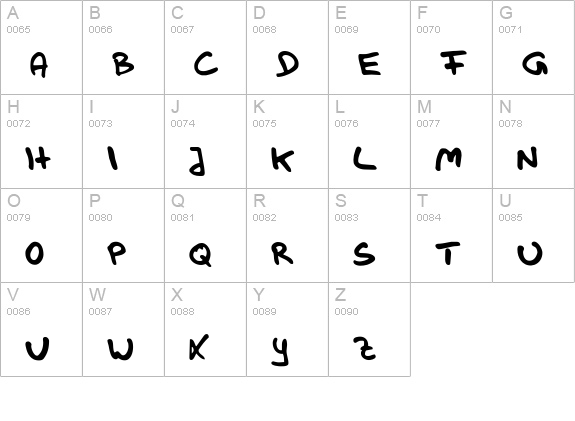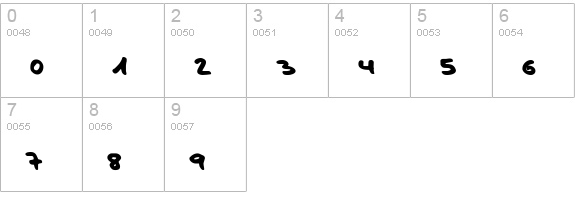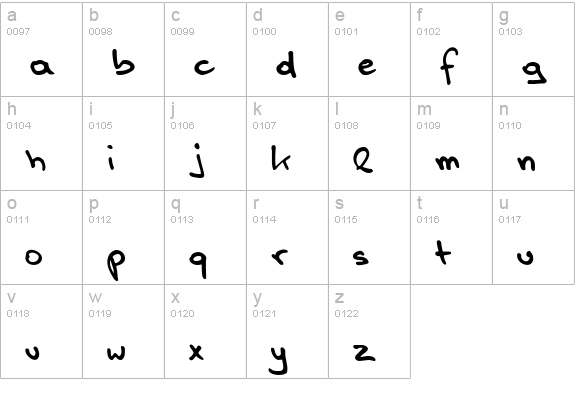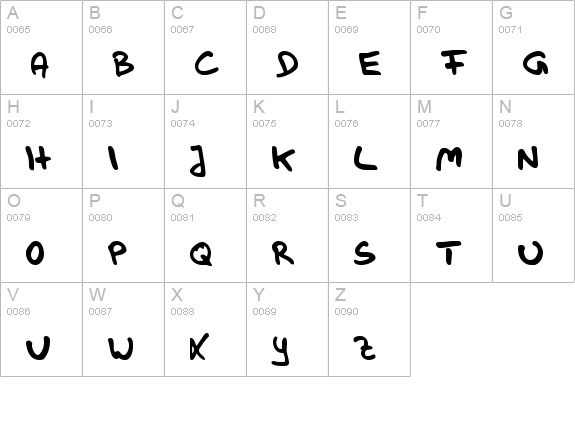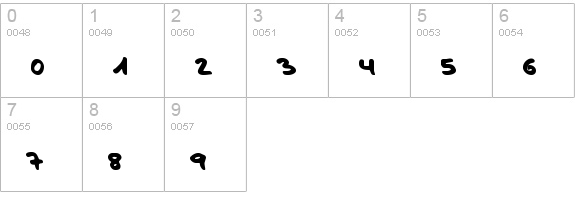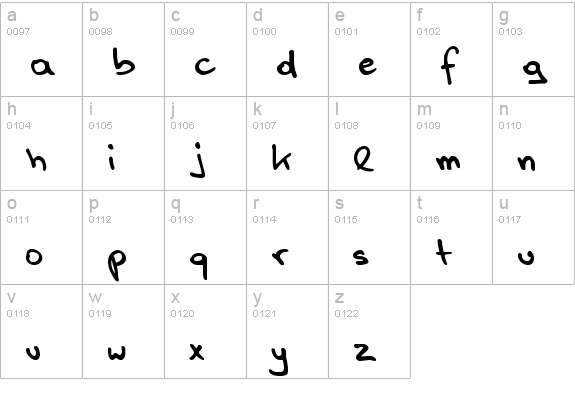
Handwerk Font Details
Handwerk font is a stunning display typeface that effortlessly combines elegance with a touch of modernity. Its carefully crafted letterforms exude a sense of sophistication, making it perfect for a wide range of design projects. With its clean lines and bold strokes, Handwerk font commands attention and leaves a lasting impression. This versatile font is free, allowing designers and creatives to utilize its beauty without any limitations. Whether you're working on a logo, branding materials, packaging design, or any other creative endeavor, Handwerk font offers endless possibilities. What sets Handwerk font apart is its ability to adapt to different styles and moods. It can effortlessly convey a sense of professionalism and authority, while also adding a playful and whimsical touch when needed. Its wide range of weights and styles ensures that there is a perfect option for every design need. Handwerk font is freely available to download at FontsMarket.com, providing easy access for designers to incorporate this stunning typeface into their projects. With its seamless compatibility across various design software and platforms, using Handwerk font is a breeze. Whether you're a seasoned designer looking to add a fresh and unique element to your work or a beginner exploring the world of typography, Handwerk font is a must-have. Its versatility, elegance, and availability make it a valuable asset in any designer's toolkit. So, go ahead and unlock the creative potential of Handwerk font today!